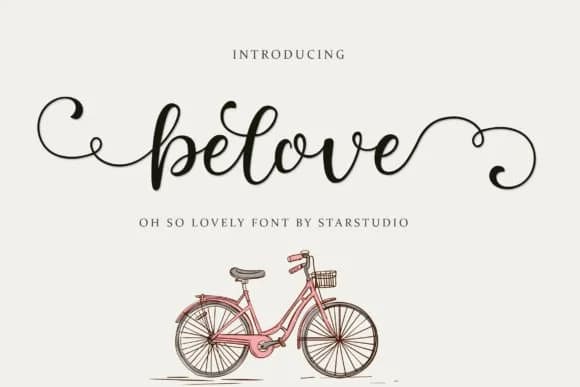
Belove Script from star studio captures the flowing quality of pen on paper, with naturally connected letterforms that feel both intimate and polished. The authenticity shines through in subtle irregularities throughout each letter, a quality that reads as genuinely personal rather than digitally sterile or overly refined. This is handwriting with character fully intact and present.
This script excels for wedding invitation suites, where both readability and elegance matter equally in every detail. Boutique cosmetic branding, luxury product labels, and personalized stationery all gain immediate credibility from the human touch Belove Script brings to each project. Its smooth connections between letters also work beautifully in hand-lettered social media graphics, greeting card designs, and brand identity work where personality needs to stand out. The warmth here builds trust with audiences that value authenticity over manufactured polish. Anywhere you want to signal genuine craftsmanship and care rather than corporate efficiency, this script delivers.
Belove Script Font is a script font that shines as a display or heading face. Pair it with a clean sans-serif or serif font for body text β the contrast creates a clear hierarchy while the two styles stay balanced and easy to read.